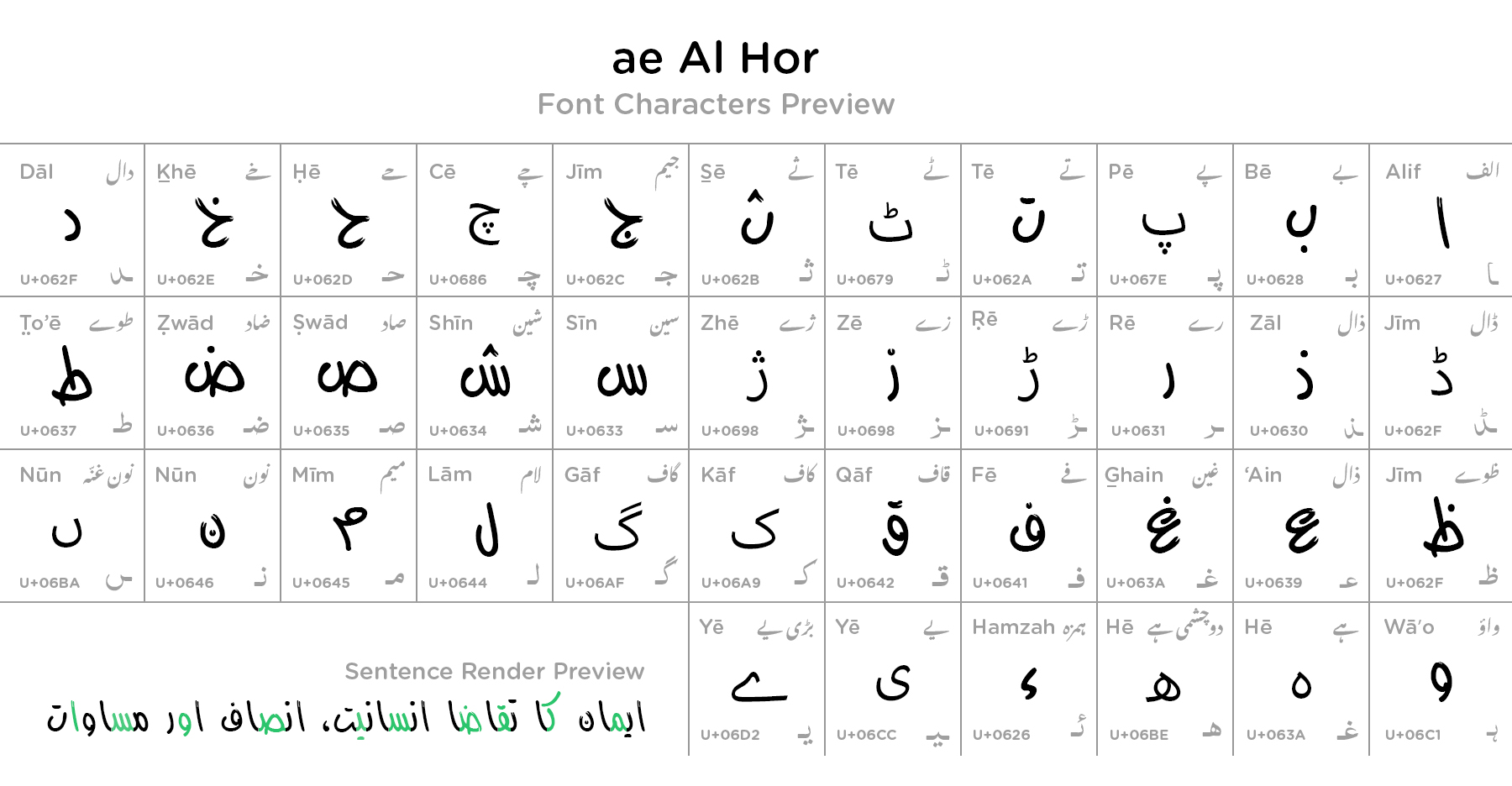
Ae Al Hor is a handwritten, rounded Arabic font with an untidy appearance. Created by Nadim Shaikli and introduced in October 2017, this font has an intricate design, like letters written by thick markers, with every character having a different size and shape. It was manufactured by Al-Amri and clearly is not inspired by any calligraphy script. This free-style font offers 476 letters and symbols and 456 glyphs, making it versatile and compatible with various design needs. Supported by Unicode blocks and multiple languages, it ensures consistency across different design platforms. However, the font is only available in a single font weight, affecting its practicality and diversity.